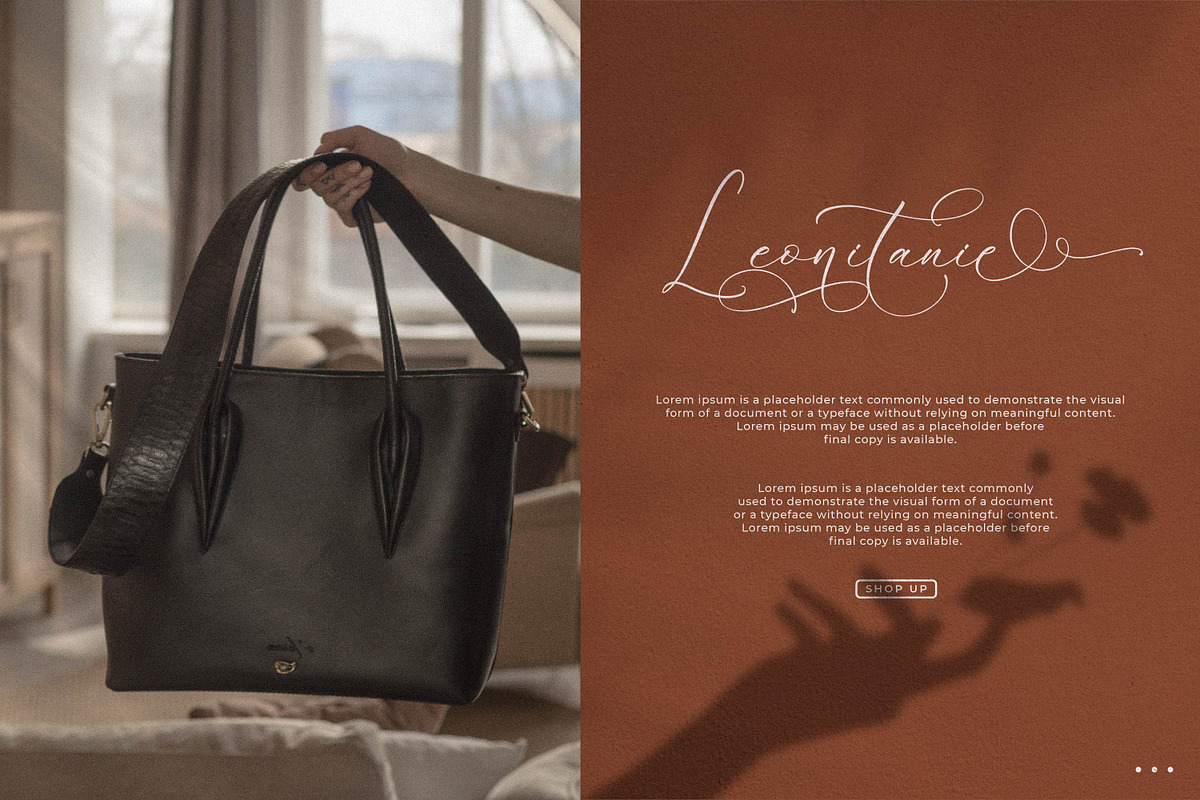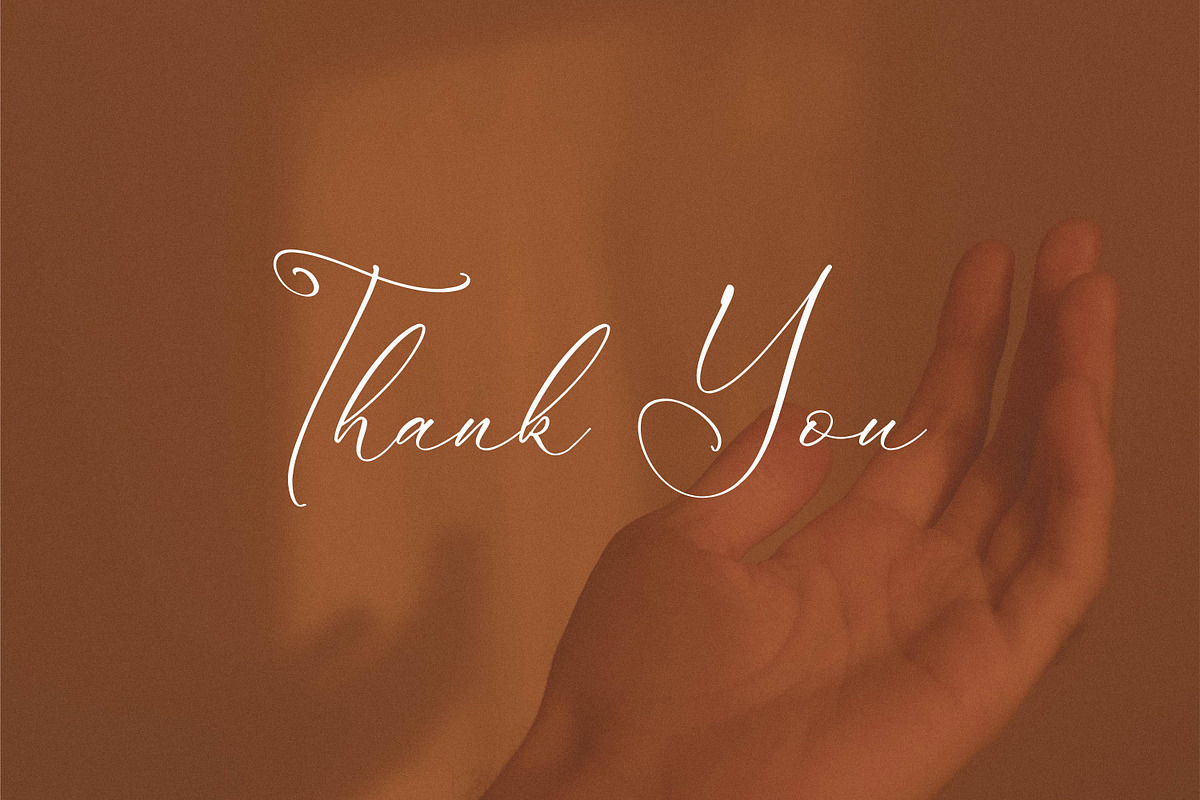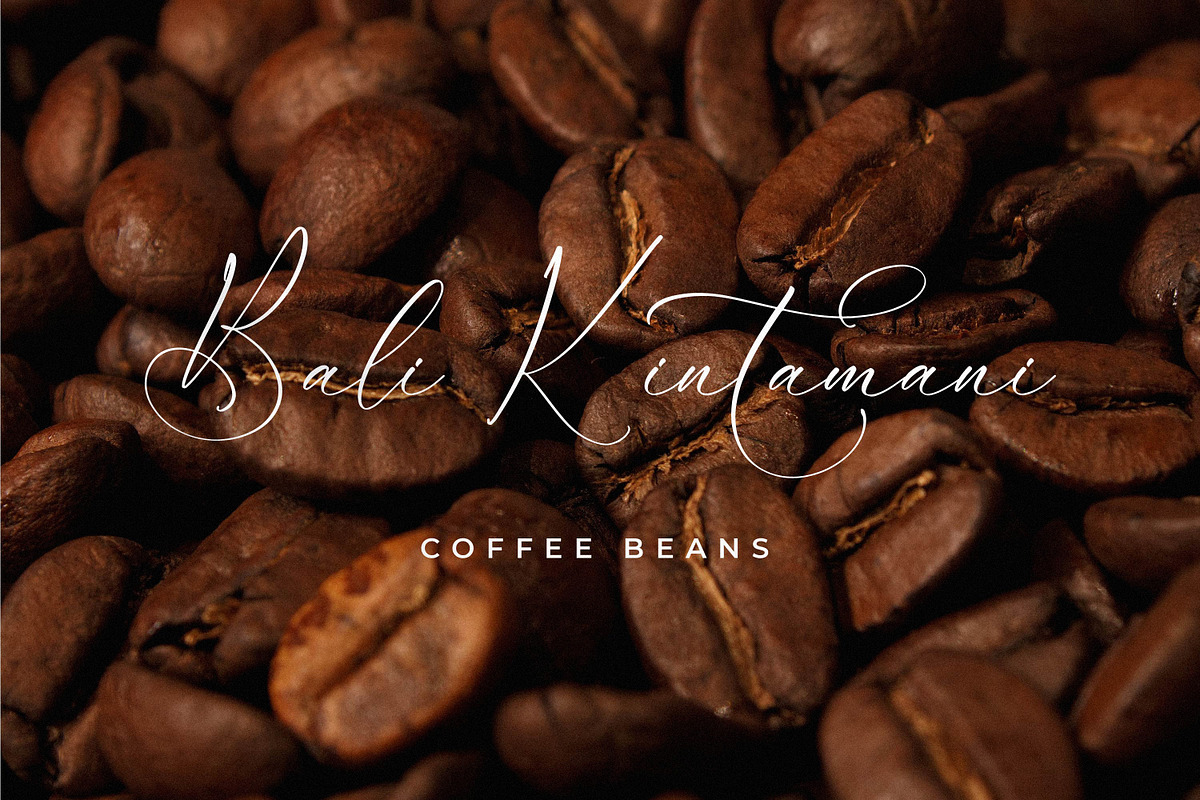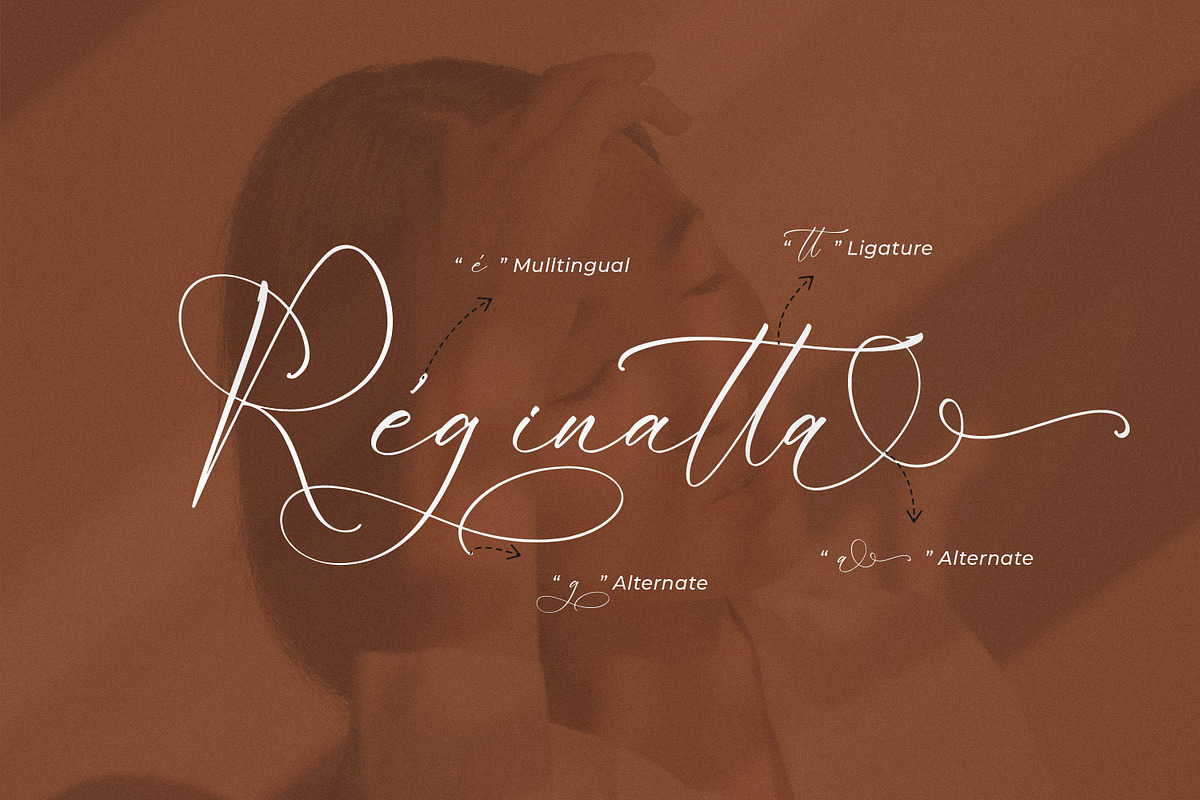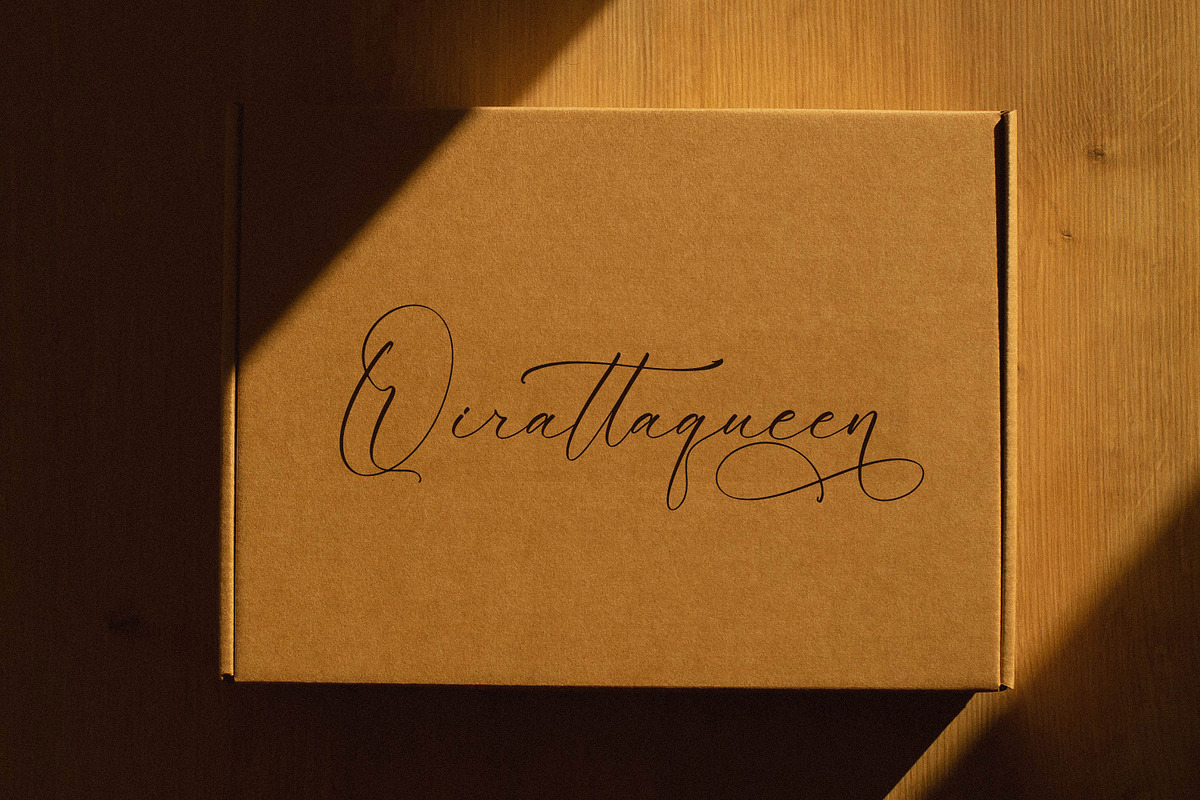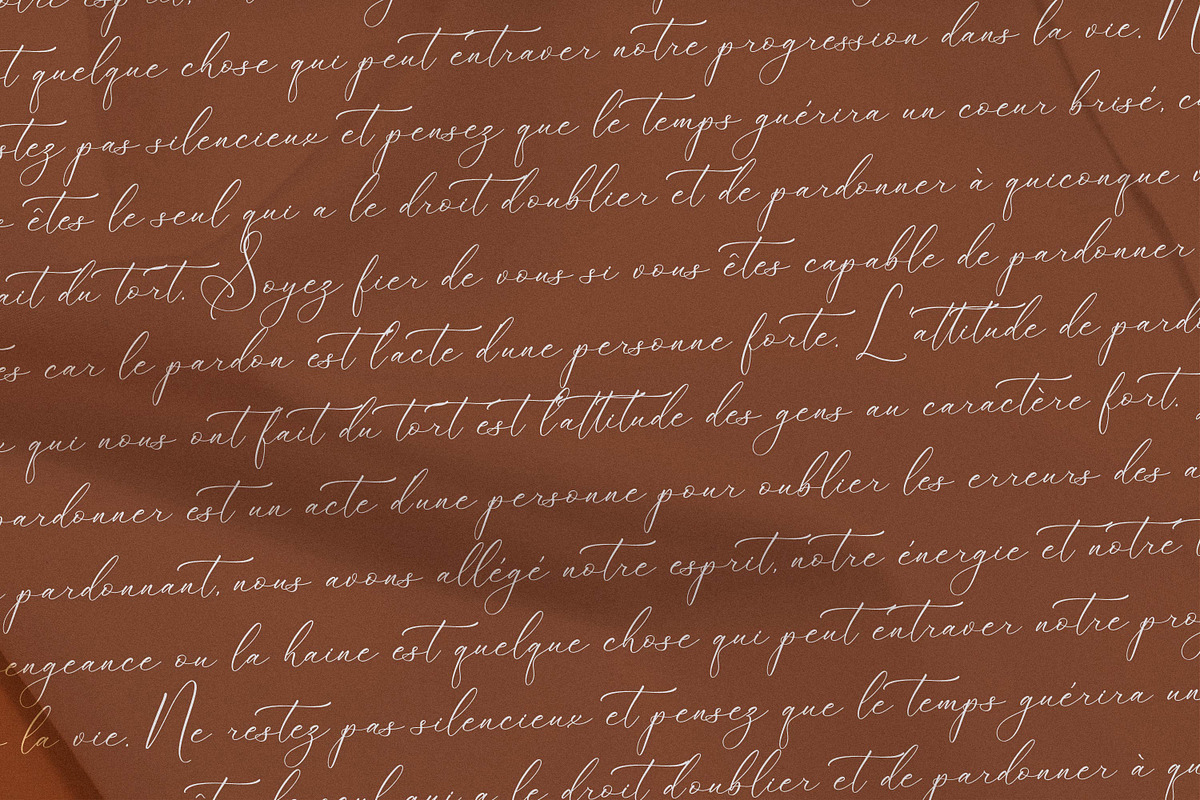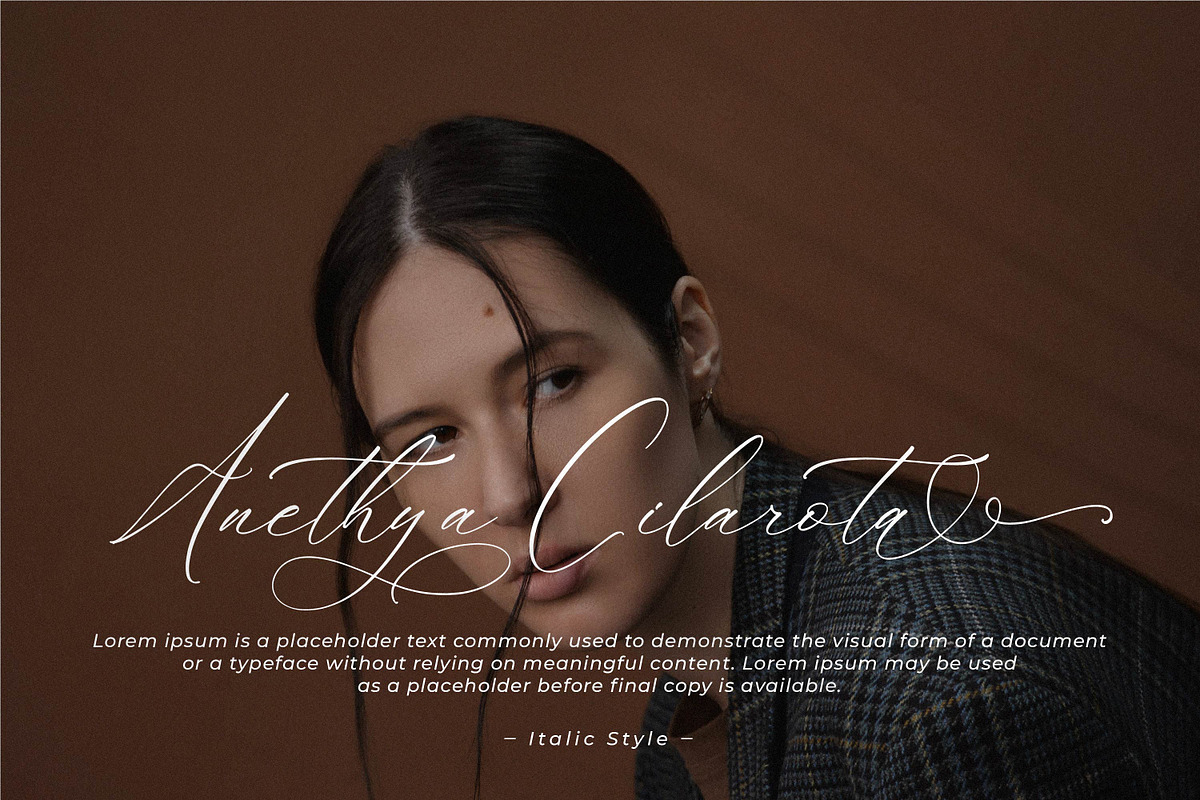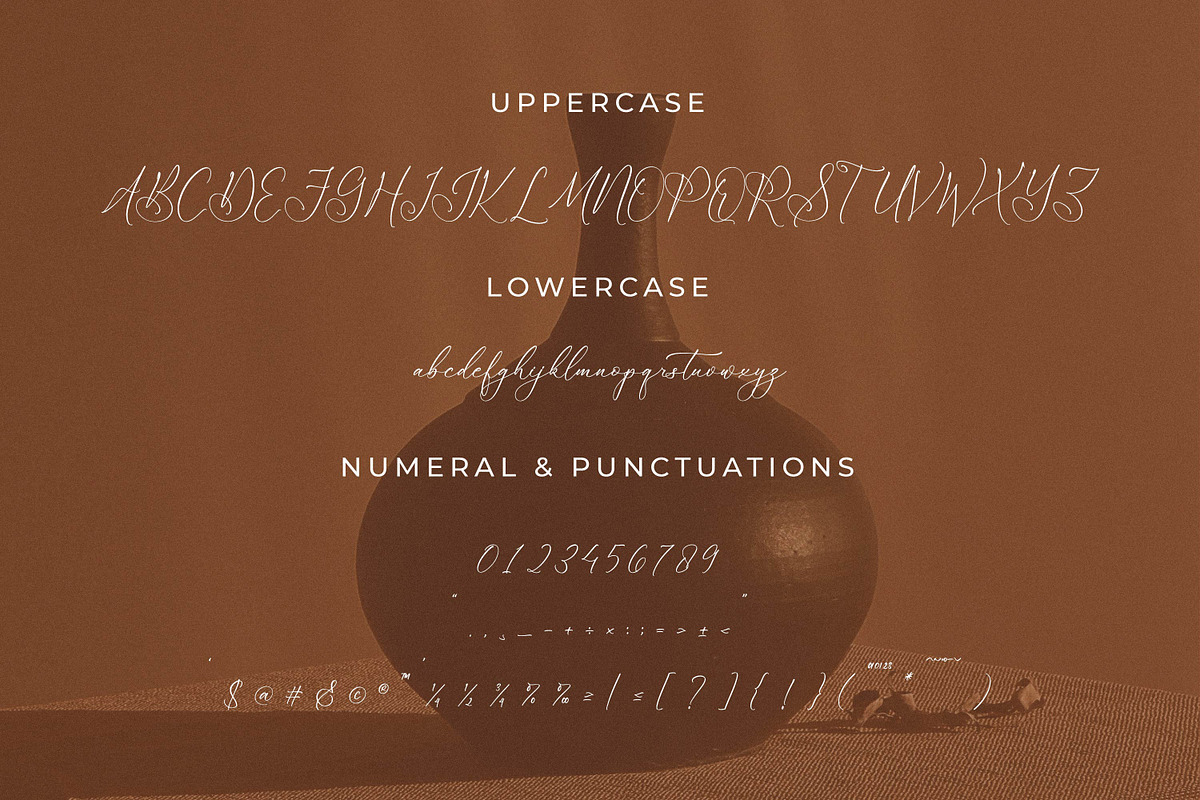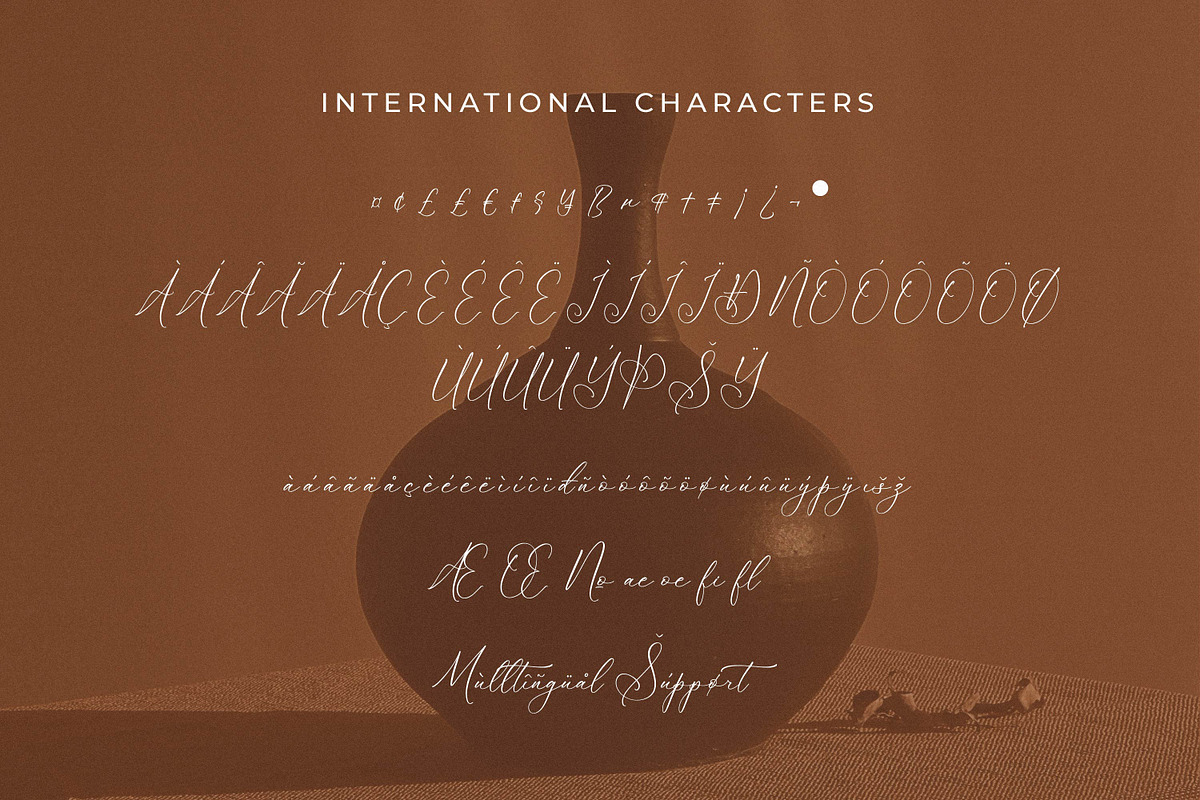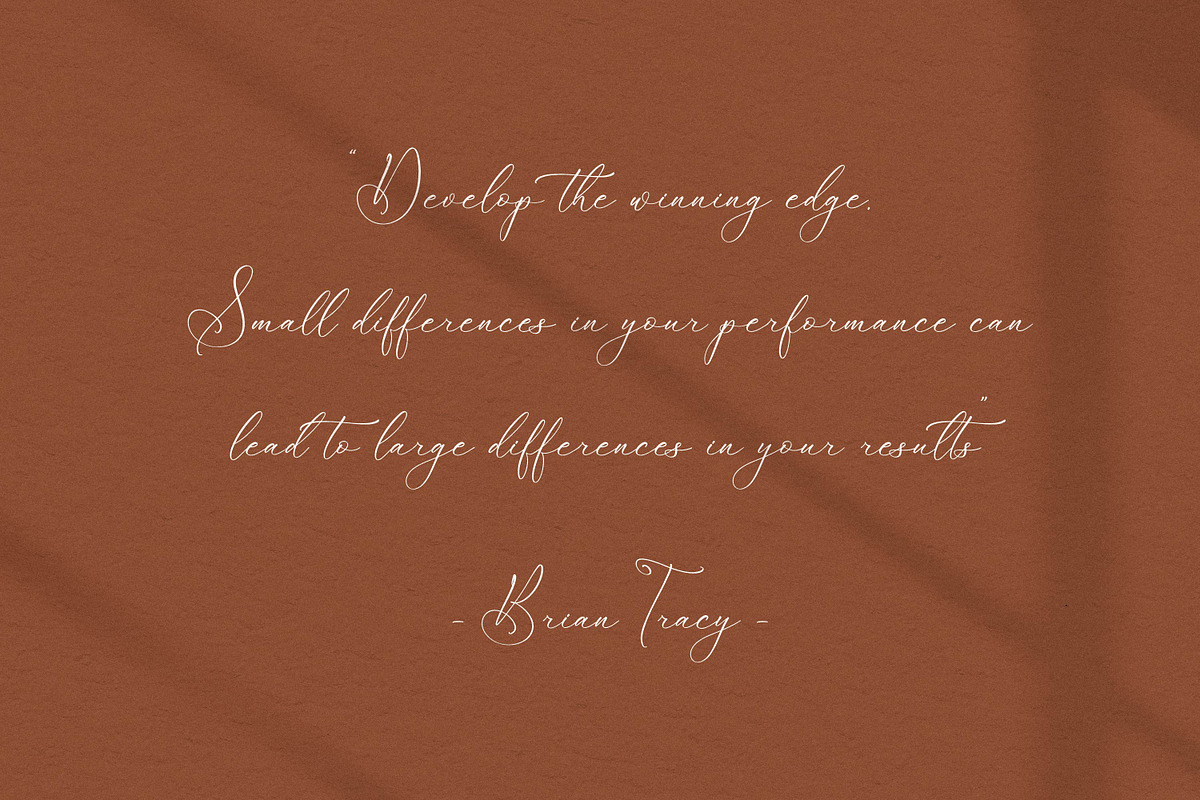
Latteuqeles
Latteuqeles - Chic Calligraphy Font, from Integritype Studio, is a premium Chic Calligraphy Font, perfect for any project like: logos, branding projects, homewares designs, product packaging, mugs, quotes, posters, shopping bags, t-shirts, covers books, business cards, invitation cards, greeting cards, labels, photography, watermarks, special events and all your other luxury projects that require a premium taste.
Ligatures, Alternatives & Swashes